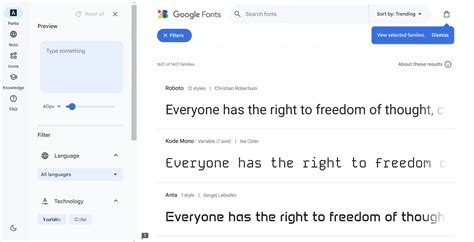
When I design executive dashboards or client reports, typography often makes or breaks the readability of dense data. I've spent hours testing different typefaces to find the perfect balance between professional and legible. If you're hunting for a reliable typography toolkit, searching for 32+ Free Summary Google Fonts Ttf files will yield a solid starting point. But you need to know which ones actually hold up under real-world conditions before committing your layout to them.
Why TTF Files Still Matter in Modern Workflows
Most web developers default to WOFF2 formats for browser optimization. That said, if you are laying out documents in Microsoft Word, Google Docs, or desktop publishing software, you still need the raw TrueType files. In my experience, local TTF files render text much sharper on Windows machines compared to their web-font counterparts. You also avoid that annoying “flash of unstyled text” entirely when working offline.
Selecting From the 32+ Free Summary Google Fonts Ttf Options
Here’s the thing: not all typefaces are built for scanning. A good summary font needs a tall x-height, clear distinction between similar characters (like lowercase ‘l’ and uppercase ‘I’), and consistent kerning. When I tested a massive collection of open-source typefaces, I noticed that humanist sans-serifs consistently outperformed geometric ones for paragraph text. Geometric fonts look great in headlines but cause eye strain in dense blocks of text.
Font Family Classification Ideal Use Case
Roboto Neo-Grotesque Dashboards and data tables
Source Sans 3 Humanist Long-form executive summaries
Lora Transitional Serif Financial report introductions
Typography in summaries shouldn’t be an afterthought. By carefully selecting the right open-source TrueType files, you drastically improve how your audience digests critical information. Stick to fonts with high legibility, test them in your specific software environment, and your reports will immediately look more authoritative. Formatting is just as crucial as the data itself.